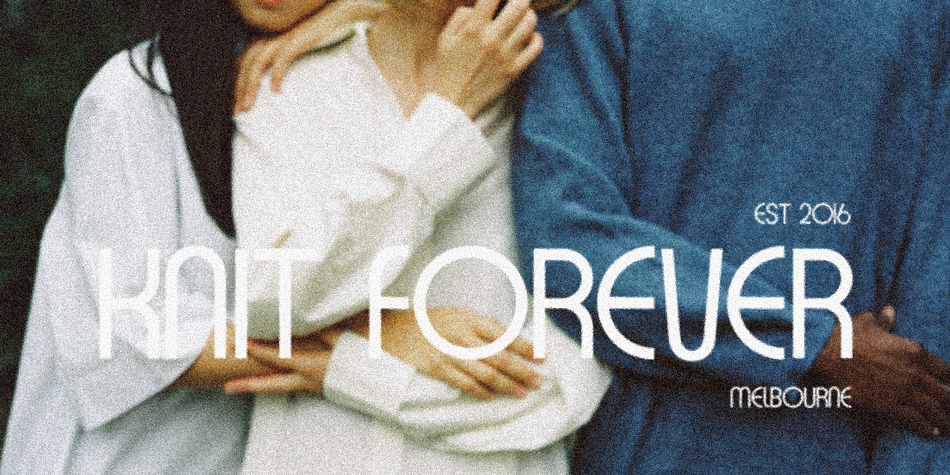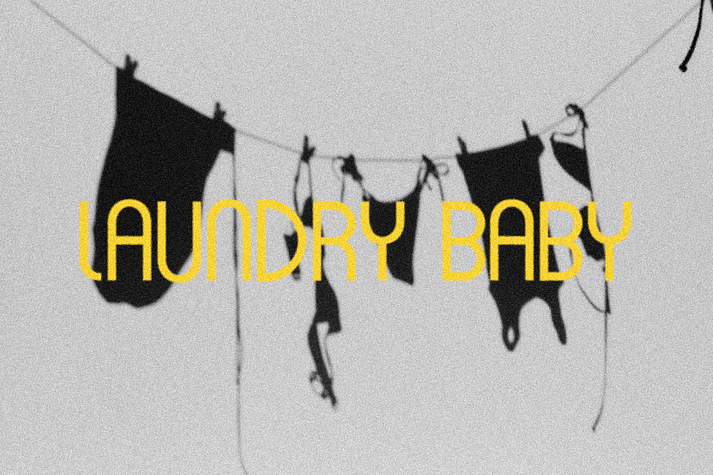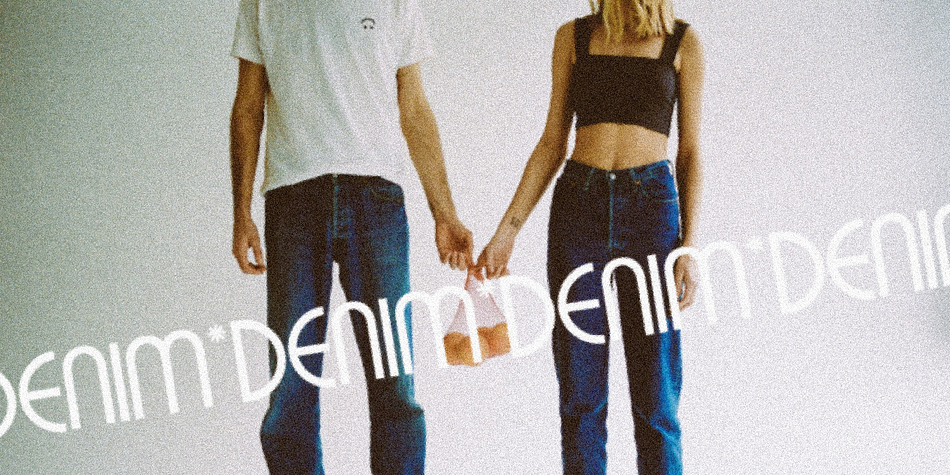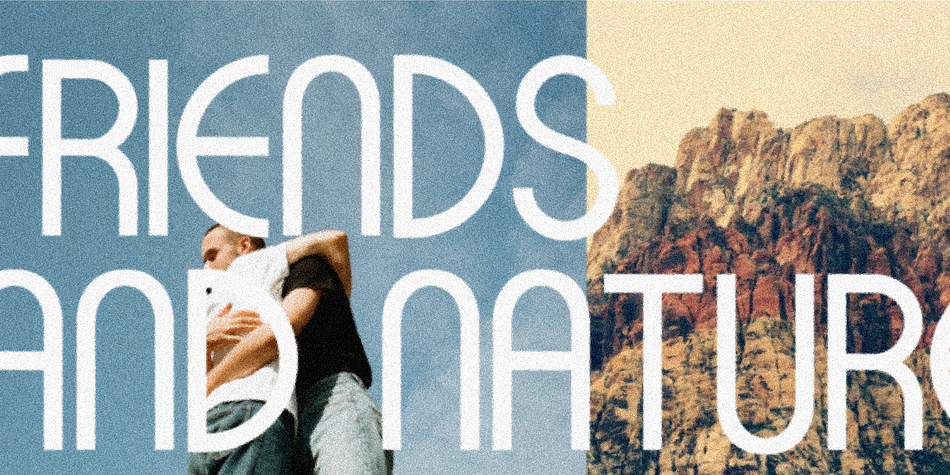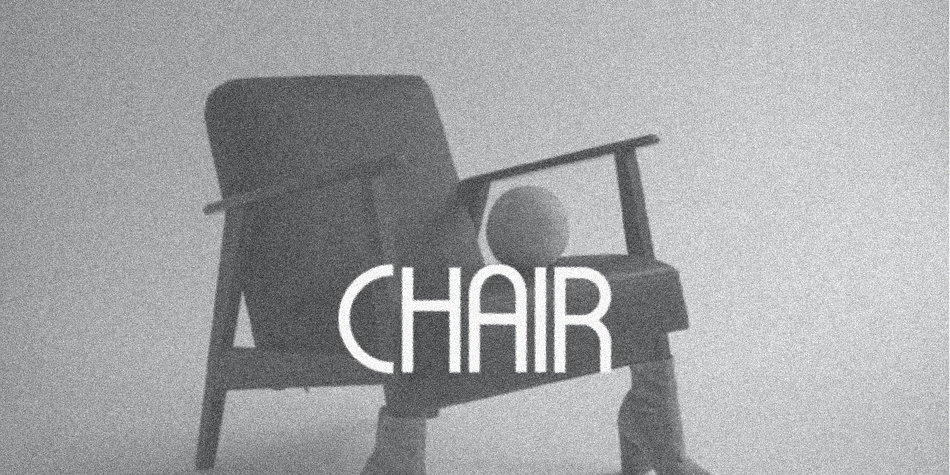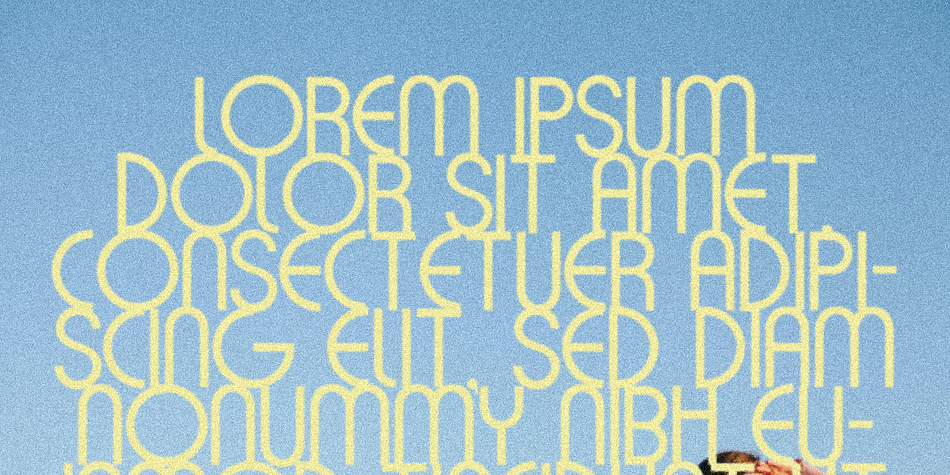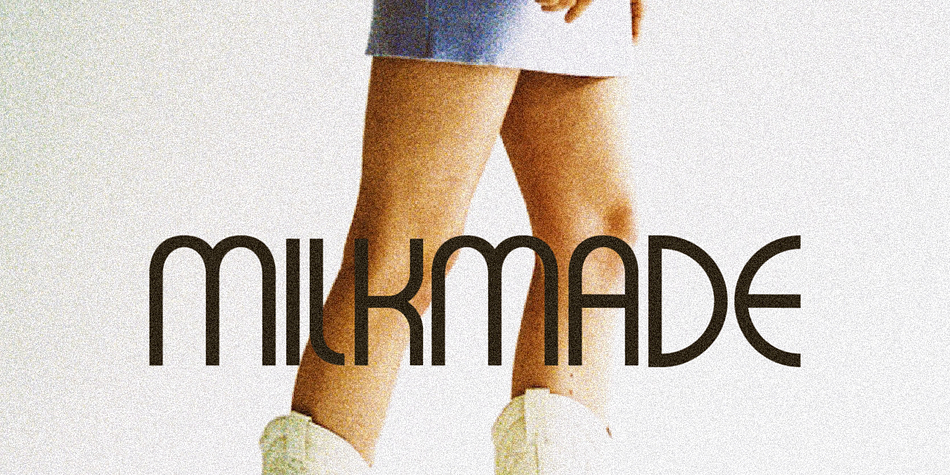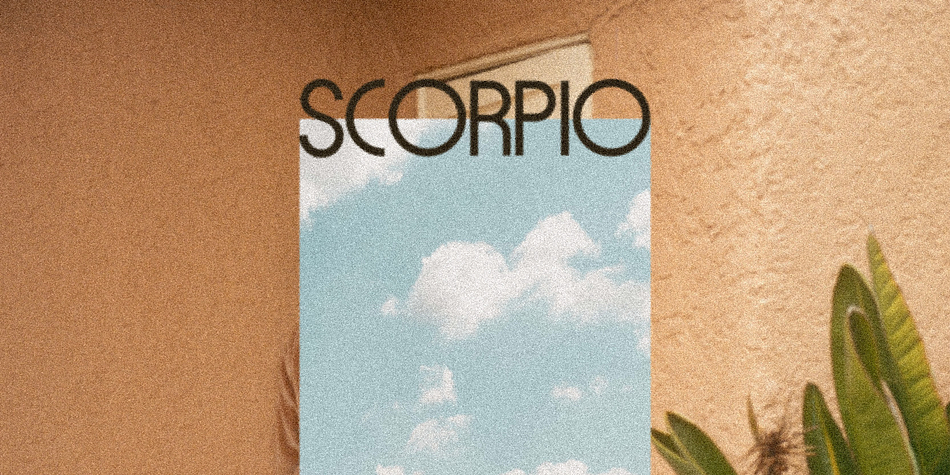
MILK MADE
Milk Made is a display sans and retro font family published by Loryn Ipsum.
Milk Made | a rounded retro font
Milk Made is a fun rounded retro font inspired by mid century magazine and print advertisements.
Perfect for; retro brands, young brands, gen z branding, logos, social media, posters.